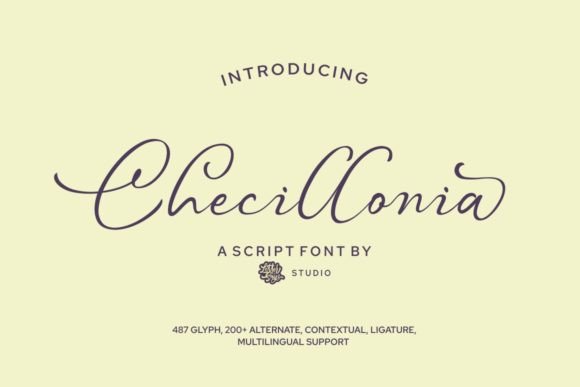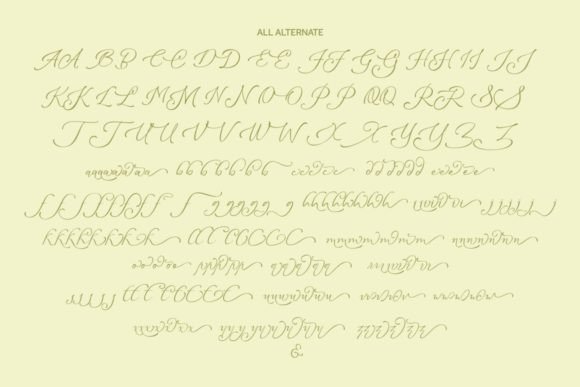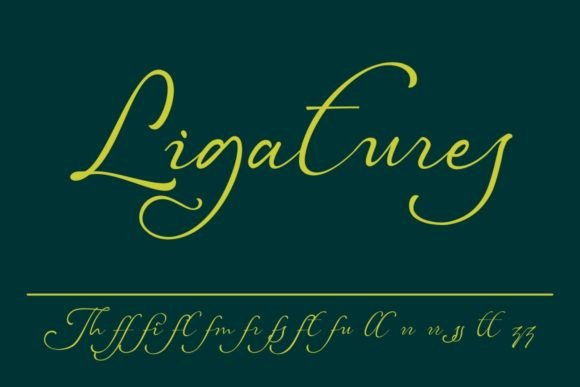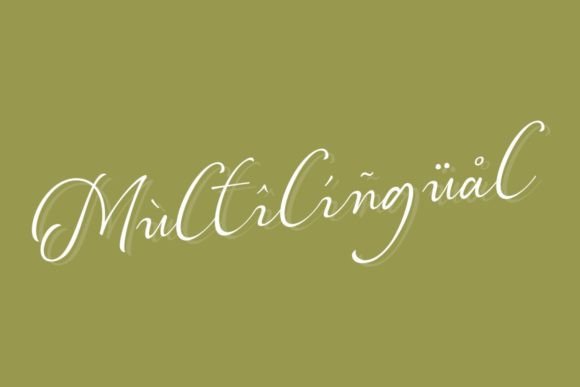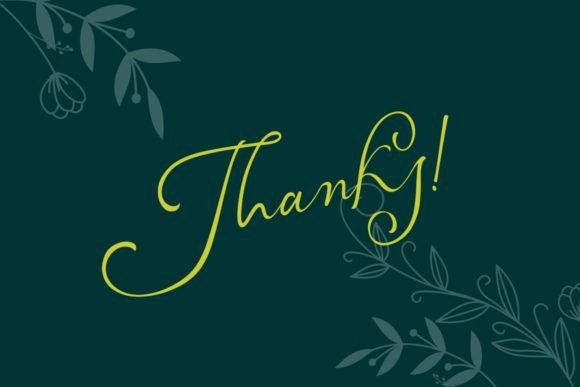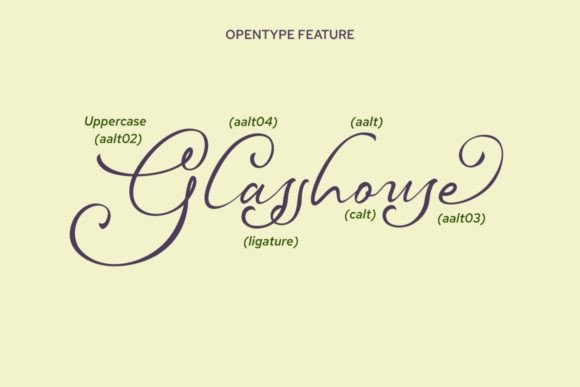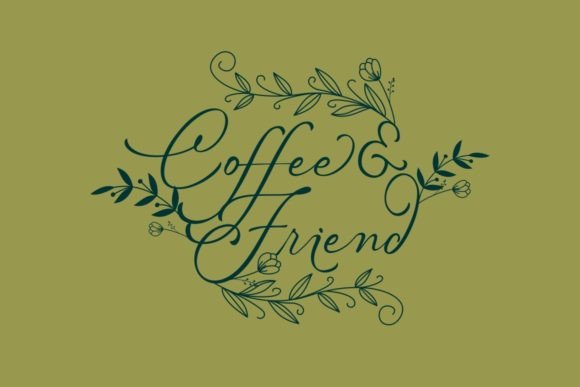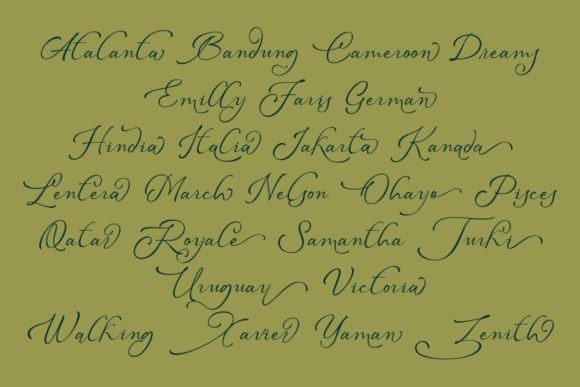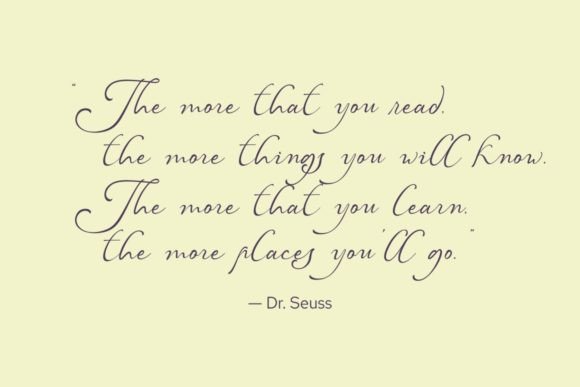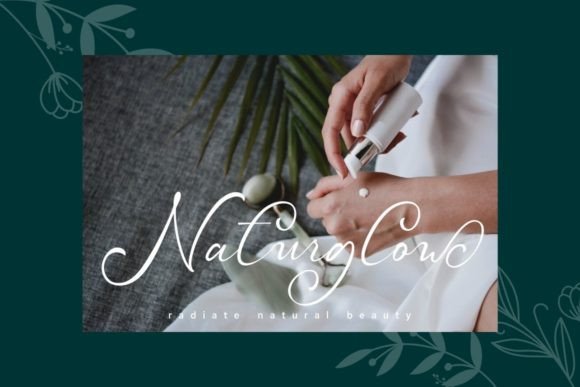
Checillonia Font
Checillonia stands out as a sophisticated script font, boasting distinctive letter shapes infused with a hint of antique and classic undertones. This typeface is ideal for a myriad of creative projects, ranging from impactful branding initiatives to elegant packaging designs, expressive quotes, and heartfelt greeting cards.
The distinctive charm of Checillonia lies in its unique letterforms, which exude a sense of class and timelessness. The script’s carefully crafted nuances add an antique touch, elevating it beyond conventional fonts. Whether you’re aiming to establish a memorable brand identity, create visually appealing packaging, or convey a message with finesse, Checillonia offers a versatile and elegant solution.
The font’s versatility extends to various design contexts, making it a valuable asset for graphic designers, marketers, and creatives alike. Its timeless appeal ensures that your projects will maintain a sense of sophistication, making a lasting impression on your audience.
Picture Checillonia gracing luxury product packaging, adding a touch of refinement to your brand’s image. Imagine it conveying poignant quotes, beautifully enhancing the sentiment behind each word. Visualize it adorning greeting cards, bringing an air of class to personal messages.
In essence, Checillonia is more than just a font; it’s a design tool that enhances the visual language of your projects. Its ability to seamlessly blend antique aesthetics with contemporary elegance makes it a go-to choice for those seeking a touch of class in their creative endeavors. Whether you’re embarking on a branding journey or crafting heartfelt messages, Checillonia is the script font that transcends time, leaving a lasting mark of sophistication on every design it graces.